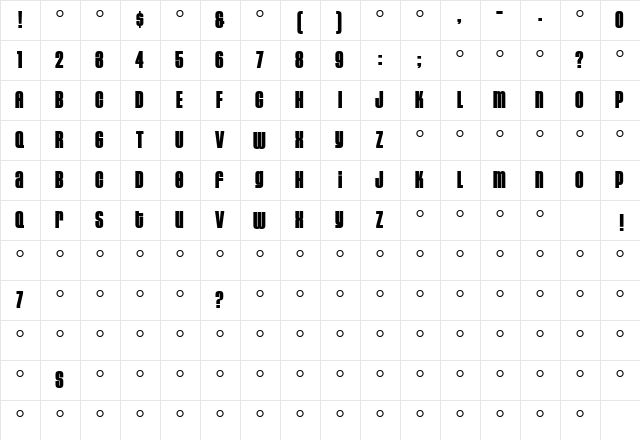
HouseGothic-Black Regular
Design Context for HouseGothic-Black Typeface
HouseGothic-Black has the quiet confidence of well-executed sans-serif typography: versatile, unobtrusive, and dependable at any size.
Font Pairing: Works well alongside a characterful serif or display font that can carry the expressive load while HouseGothic-Black handles the functional copy.
Pro Tip: Pair HouseGothic-Black with a display or serif font for headlines — its neutral character makes it an excellent supporting player in complex typographic systems.